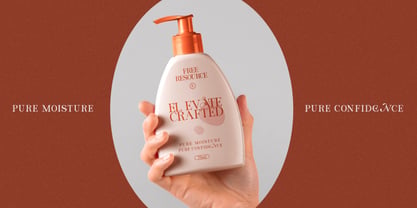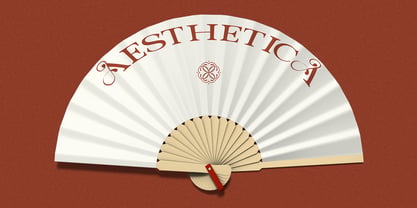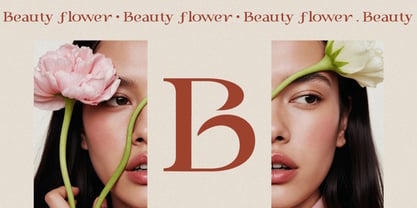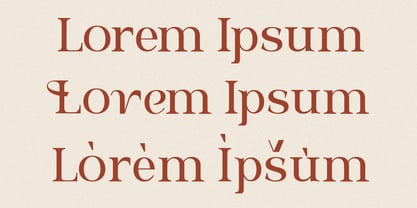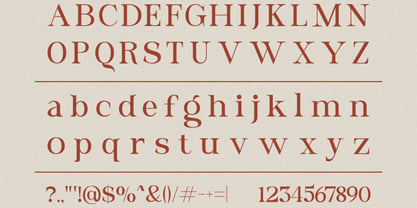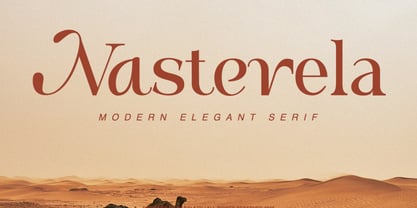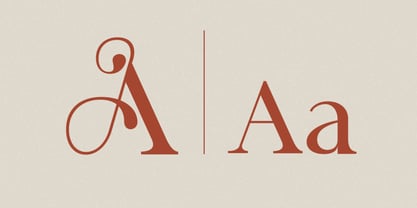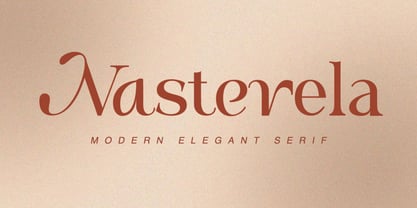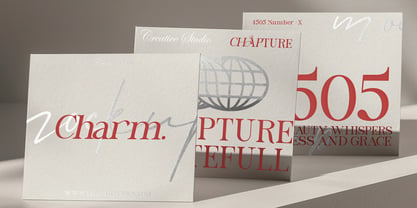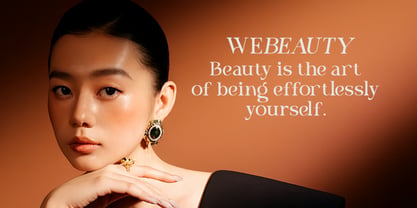
Nasterela
The Nasterela Font Family was designed by Fajar Indra and published by Rasio Studio. Nasterela contains 1 styles. More about this family
Nasterela is a modern elegant serif typeface designed to bring refined beauty and timeless character to your visual projects. It features graceful curves, balanced proportions, and subtle contrast that create a luxurious yet readable appearance. The font includes uppercase, lowercase, numerals, and essential punctuation, making it suitable for both headlines and supporting text. Ideal for branding, editorial layouts, fashion designs, wedding materials, and premium marketing assets. This font is for personal and commercial use; redistribution or resale of the font file itself is not permitted. Nasterela is perfect for designers who want to add a refined and luxurious feel to their projects, especially for fashion brands, beauty products, editorial magazines, wedding stationery, high-end packaging, and social media visuals that require elegance and clarity.